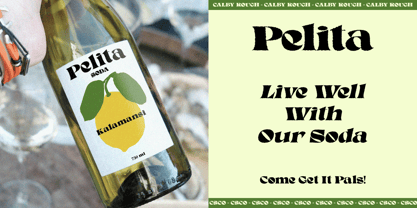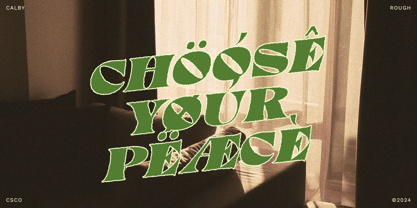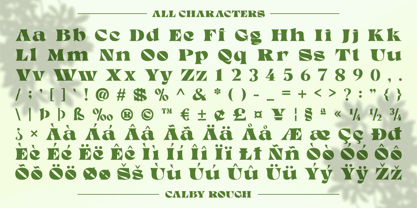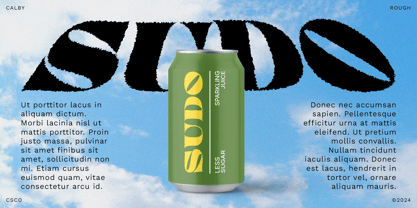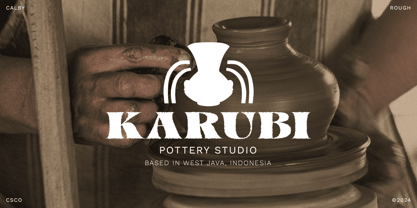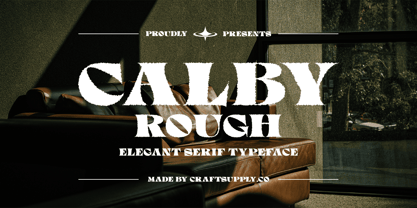
Calby Rough
by Craft Supply Co
The Calby Rough Font Family was designed by Trio Nazzar Saputra, Wahyu Hadi Yuana and published by Craft Supply Co. Calby Rough contains 2 styles and family package options.
Calby Rough: Bold Serif Font with Rugged Elegance
Elegant Sophistication with a Raw Artistic Flair
Calby Rough is a bold serif font enhanced with a rough effect, exuding an elegant yet rugged charm. This unique combination makes it perfect for impactful designs that balance sophistication with a touch of raw, artistic flair.
Striking and Stylish Design
With its bold serif characters and distinctive rough effect, Calby Rough creates a striking and stylish appearance. Each letter is designed to stand out, adding depth and character to your typography.
Ideal for Impactful Projects
Perfect for branding, posters, and editorial layouts, Calby Rough enhances your designs with its elegant yet rugged charm. Whether used for logos, promotional materials, or magazine spreads, this font brings a sense of sophistication and raw artistic flair to your projects.
Elevate Your Designs with Calby Rough
Choose Calby Rough to elevate your designs with a bold serif font that combines elegance and rugged charm. This font ensures your projects achieve an impactful and sophisticated look, making them stand out with a unique and artistic appeal.